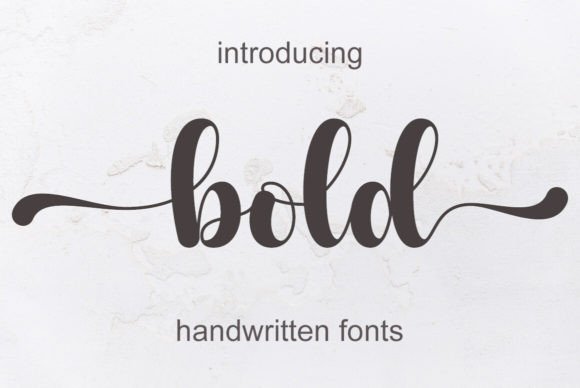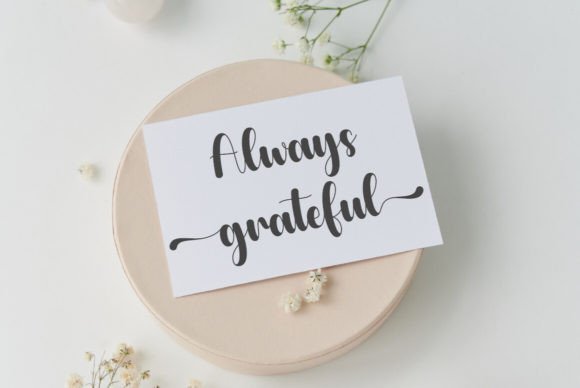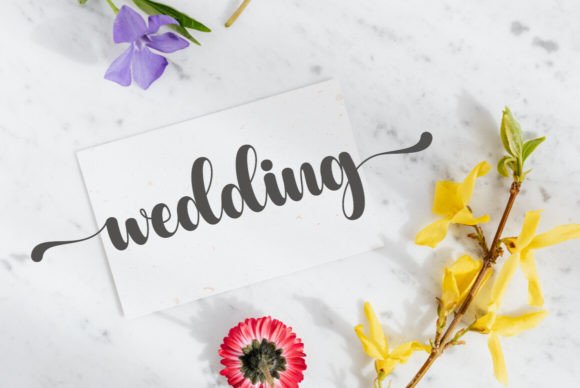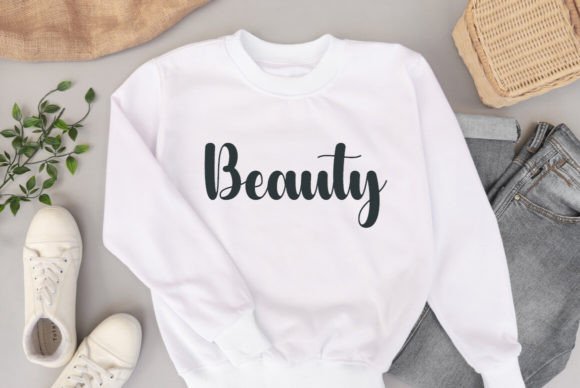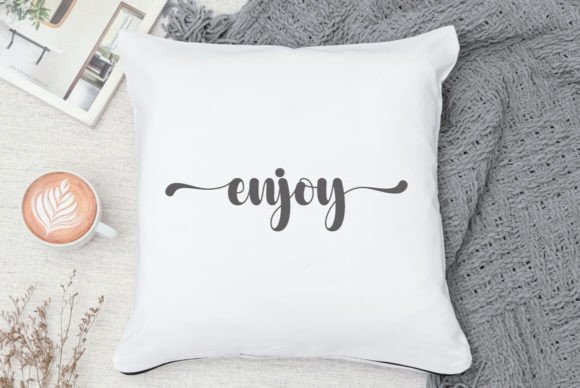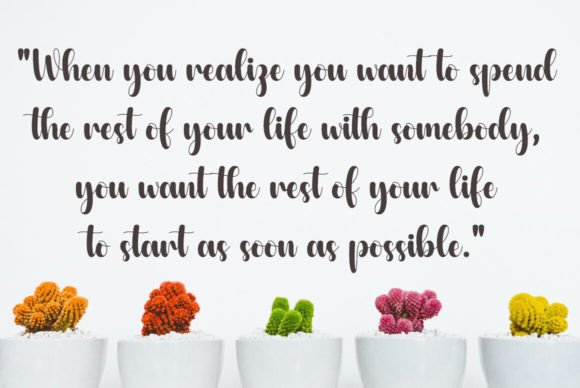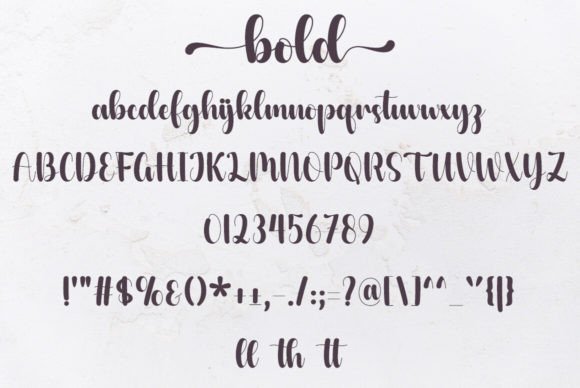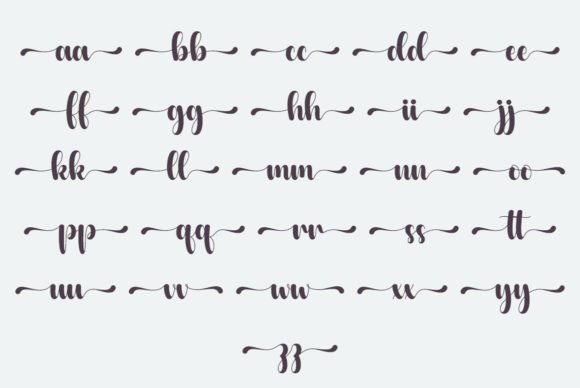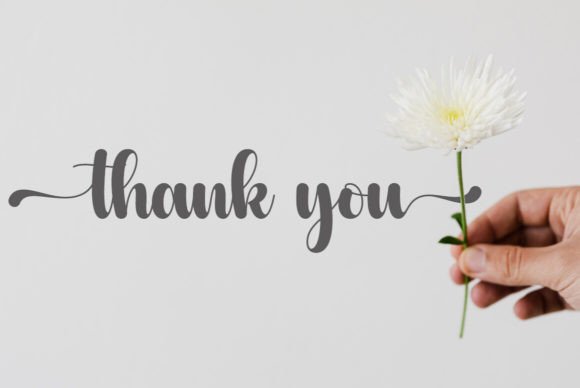
Bold Font
Bold is a stylish and incredibly elegant handwritten font. It looks stunning on wedding invitations, thank you cards, quotes, greeting cards, logos, business cards, and every other design which needs a handwritten touch.